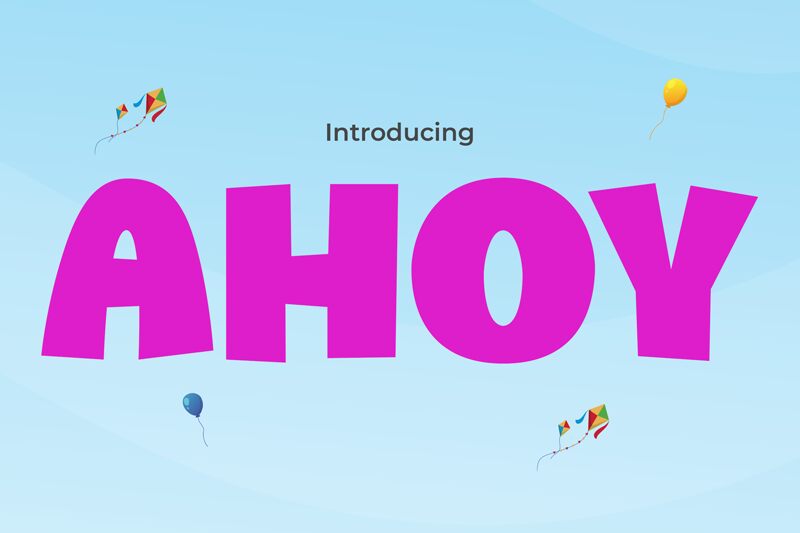
Ahoy is a free cartopon font by Pinisiart, with loose lines which are a signature of this font. The font is very eye catching and dynamic as it will add a modern touch to your text. It has a very cheerful style making it suitable for use in contemporary applications.
Use Ahoy font for advertising and headlines like a talented type designer. Apply it in branding of products directly handed to consumers, like on packages and labels where you get a chance to boost sales by creating a loving relation with your customers.